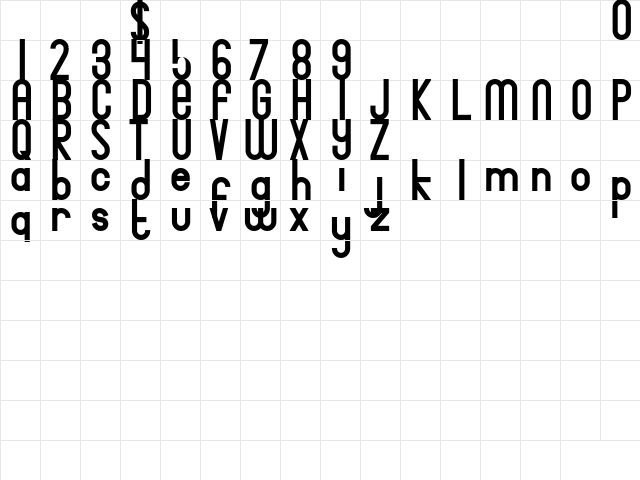
Bingke Berendam DEMO Regular
Design Context for Bingke Berendam DEMO Typeface
Bingke Berendam DEMO is a composed and adaptable typeface that performs quietly and consistently across a wide range of design contexts.
Pro Tip: Use Bingke Berendam DEMO in both headline and body roles to test its range before committing to a single application.